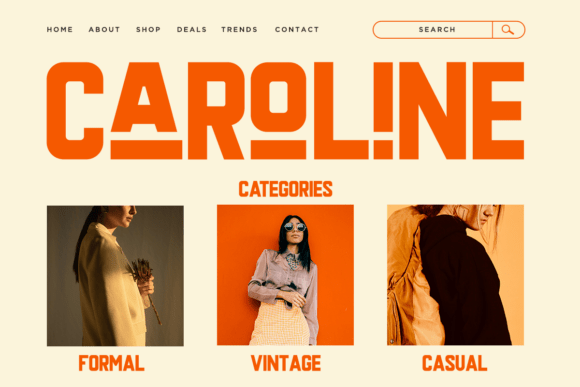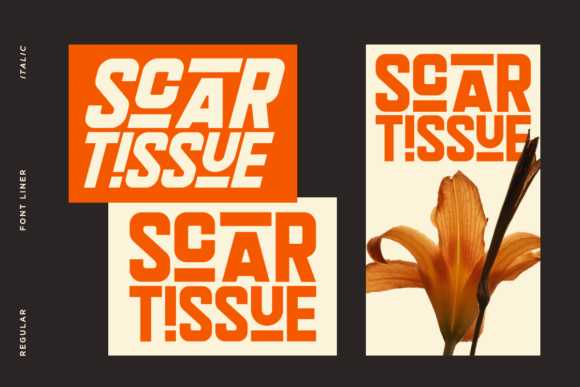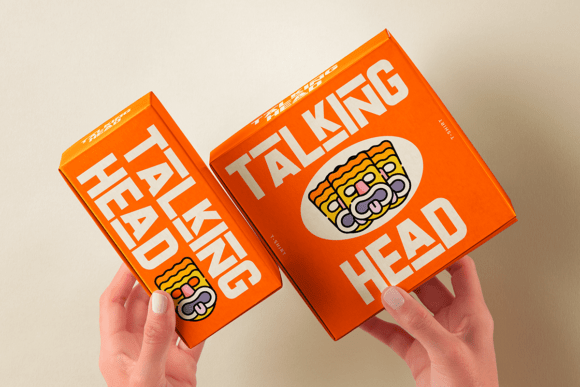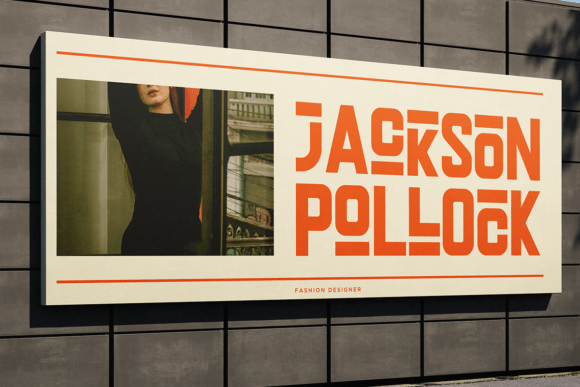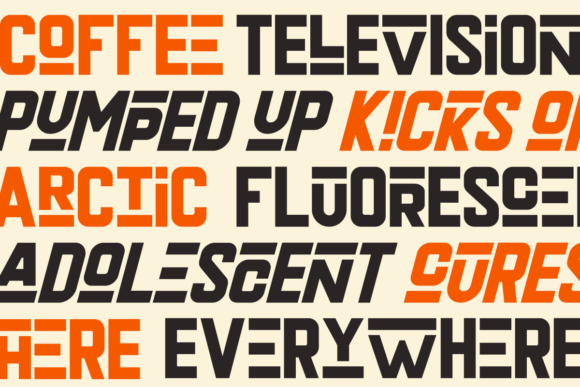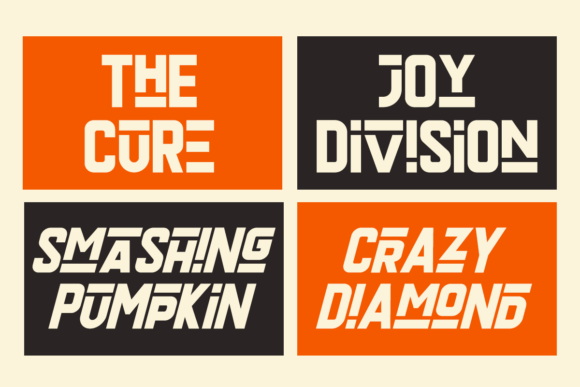
Introduction to Groomy Font
Have you ever found yourself staring at a blank page, desperately seeking the perfect font to bring your creative vision to life? I know I have. It’s that moment when everything seems to be falling into place, and the right font can be the difference between a decent design and a truly exceptional one. That’s where the Groomy Font comes in – a bold and assertive sans serif font that’s sure to elevate any project you throw at it.
Whether you’re working on a free download or a high-end commercial project, the Groomy Font is an invaluable resource for designers. Its clean lines and transparent background make it the perfect addition to any creative project, and its versatility means it’s just as at home on a business card as it is on a website or social media post.
Key Features of Groomy Font
- High-Quality Design: Groomy Font is a high-quality design resource ideal for creative projects that require a sophisticated look and feel.
- Large Character Set: The font includes a large character set, including uppercase and lowercase letters, numbers, and punctuation marks, making it suitable for various creative projects.
Honest Review: Groomy Font
I recently stumbled upon the Groomy Font, and I must say it’s been a great addition to my design resources. The high quality and detailed texture of this font make it perfect for creative projects where a touch of sophistication is required.
- ✨ High-quality texture and design
- ⚠️ Limited number of font styles available
- ⚠️ May not be suitable for very small text sizes
Overall, I’m really impressed with the Groomy Font. It’s a great design resource that’s perfect for a variety of creative projects. With its high quality, transparent background, and free download, it’s a must-have for any designer looking to add some extra flair to their work.
Tips for Getting the Most Out of Groomy Font
To get the most out of Groomy Font, use it with a transparent background to create a clean and elegant design. You can also pair it with other high-quality design resources to create a unique and creative project.
Groomy Font is commonly used in creative projects, such as graphic design, branding, and digital art. It’s also a great resource for designers who want to create a clean and modern design with a touch of elegance.